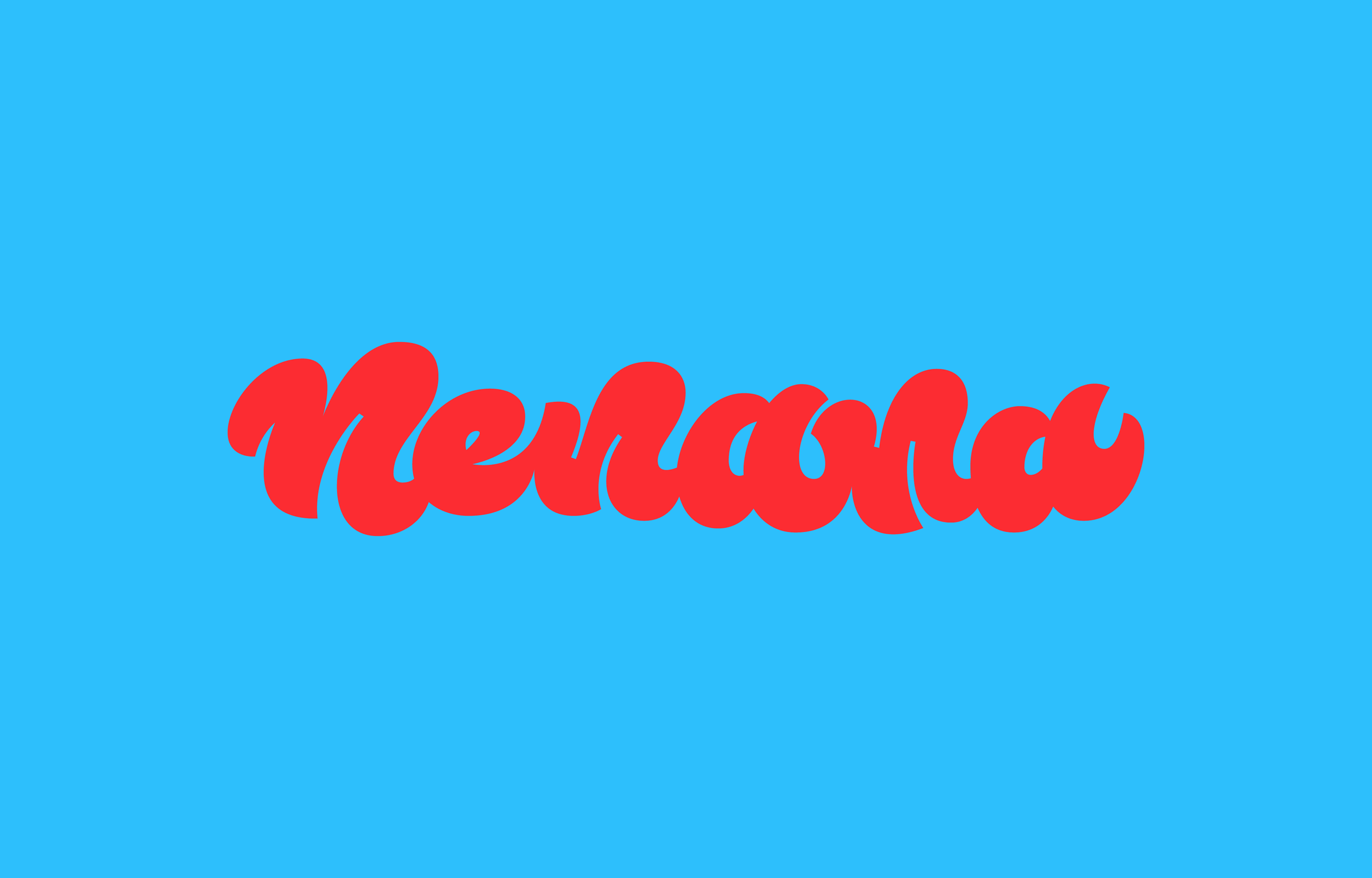
Nenana
Logo for a handmade fashion & accessories e-shop Nenana. With its ultra-bold organic script construction, the logo draws inspiration from psychedelic lettering, each stroke affects the surrounding shapes, filling up most of the available whitespace.